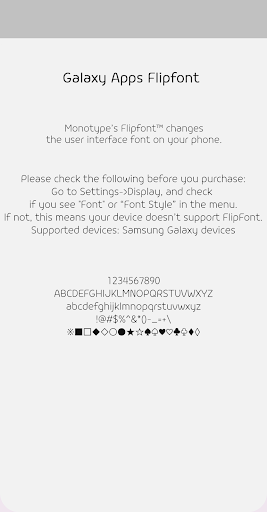
This font is a sans serif style design typeface.
It shows a comfortable flow of text lines with a round shape and a stable structure.
My sweet and cute lover.
My joy, my vitality, my springing energy.
Sweet smiles, gentle whispers, and lovely scents, make my heart flutter.
Adorable darling.